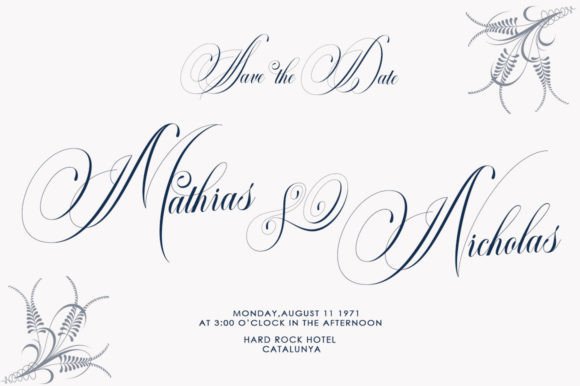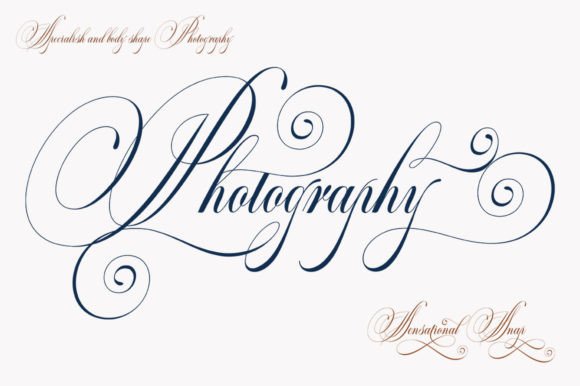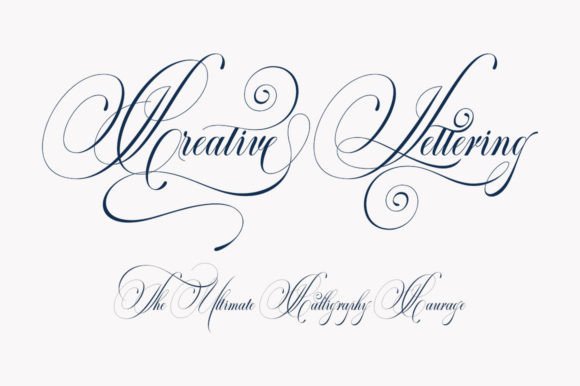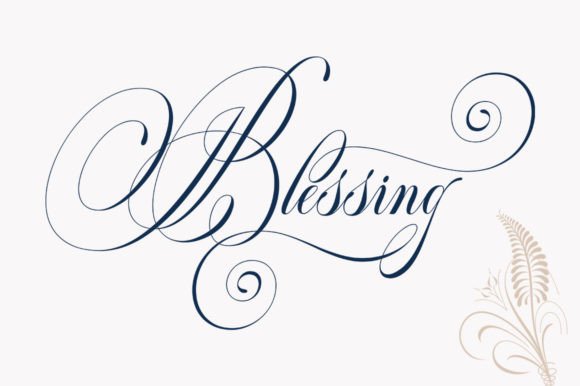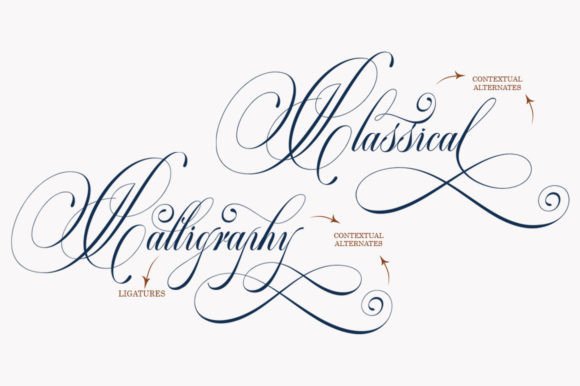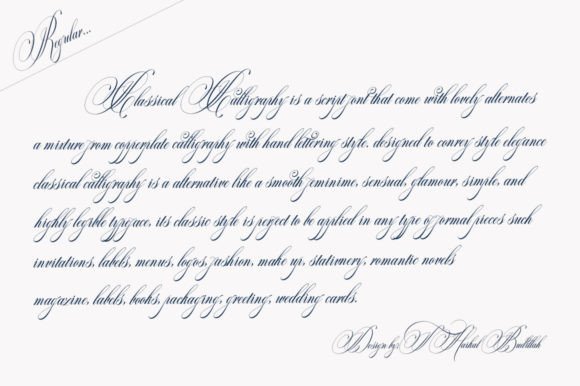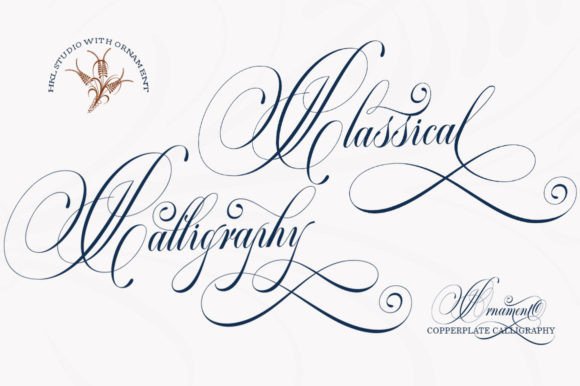
Elevate Your Designs with Classical Calligraphy Font
Are you a designer or crafter looking for a font that exudes elegance, sophistication, and romance? Look no further than Classical Calligraphy Font, a stunning vintage calligraphy script font that is sure to elevate your designs to the next level. In this article, we’ll dive into the features and benefits of Classical Calligraphy Font, and explore how it can be used to create beautiful and eye-catching designs.
What is Classical Calligraphy Font?
Classical Calligraphy Font is a copperplate mixed calligraphy font that combines the classic, timeless feel of traditional calligraphy with the fluidity and expressiveness of handwriting. The result is a typeface that is smooth, clean, feminine, sensual, glamorous, simple, and highly readable. With its beautiful alternative characters and elegant swashes, Classical Calligraphy Font is the perfect choice for designers and crafters who want to add a touch of sophistication and luxury to their designs.
Key Features of Classical Calligraphy Font
• PUA Encoded: Classical Calligraphy Font is PUA encoded, which means that you can access all of the glyphs and swashes with ease. This makes it simple to customize your designs and add your own personal touch.
• Beautiful Alternative Characters: The font comes with a range of beautiful alternative characters, allowing you to add variety and interest to your designs.
• Copperplate Mixed Calligraphy: The copperplate mixed calligraphy style gives Classical Calligraphy Font a unique and distinctive look that is both classic and modern.
• Handwriting Style: The font’s handwriting style adds a touch of warmth and personality to your designs, making them feel more approachable and engaging.
Uses for Classical Calligraphy Font
Classical Calligraphy Font is a versatile typeface that can be used for a wide range of design projects, including:
• Logos: Create a stunning logo for your business or brand with Classical Calligraphy Font.
• Wedding Invitations: Add a touch of romance and elegance to your wedding invitations with this beautiful font.
• Alcohol Labels: Use Classical Calligraphy Font to create eye-catching labels for wine, champagne, or other luxury beverages.
• Romantic Cards: Create beautiful and sentimental cards for special occasions with Classical Calligraphy Font.
Why Choose Classical Calligraphy Font?
So why should you choose Classical Calligraphy Font for your design projects? Here are just a few reasons:
• Elegance and Sophistication: Classical Calligraphy Font exudes elegance and sophistication, making it perfect for high-end designs.
• Readability: The font is highly readable, even at small sizes, making it perfect for body text and captions.
• Customization: With its PUA encoding and range of alternative characters, Classical Calligraphy Font is easy to customize and make your own.
Tips for Using Classical Calligraphy Font
Here are a few tips for getting the most out of Classical Calligraphy Font:
• Use it sparingly: Classical Calligraphy Font is a statement font, so use it sparingly to add emphasis and interest to your designs.
• Experiment with colors: The font looks stunning in a range of colors, from rich jewel tones to metallic gold and silver.
• Pair it with other fonts: Classical Calligraphy Font pairs beautifully with other fonts, such as serif and sans-serif fonts.
Classical Calligraphy Font is a stunning vintage calligraphy script font that is sure to elevate your designs to the next level. With its elegant and sophisticated style, beautiful alternative characters, and PUA encoding, it’s the perfect choice for designers and crafters who want to add a touch of luxury and romance to their designs. Whether you’re creating logos, wedding invitations, or romantic cards, Classical Calligraphy Font is a versatile and beautiful typeface that is sure to impress.